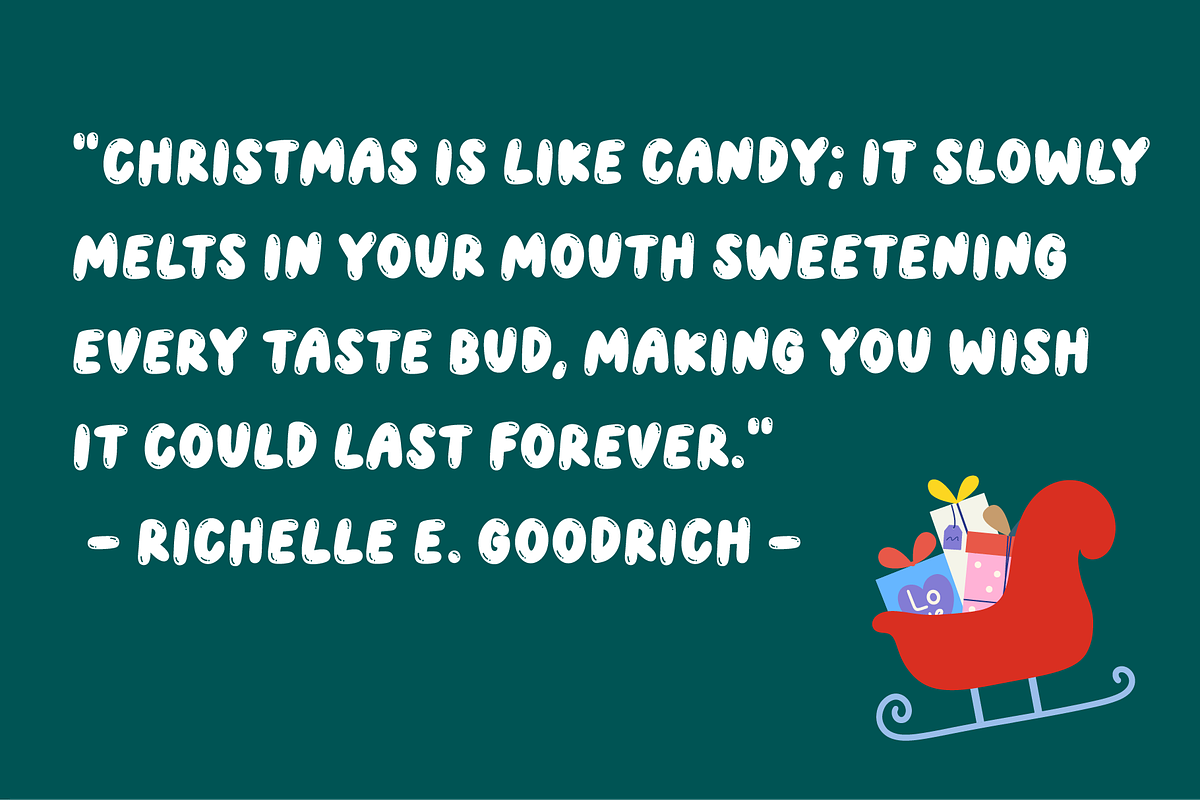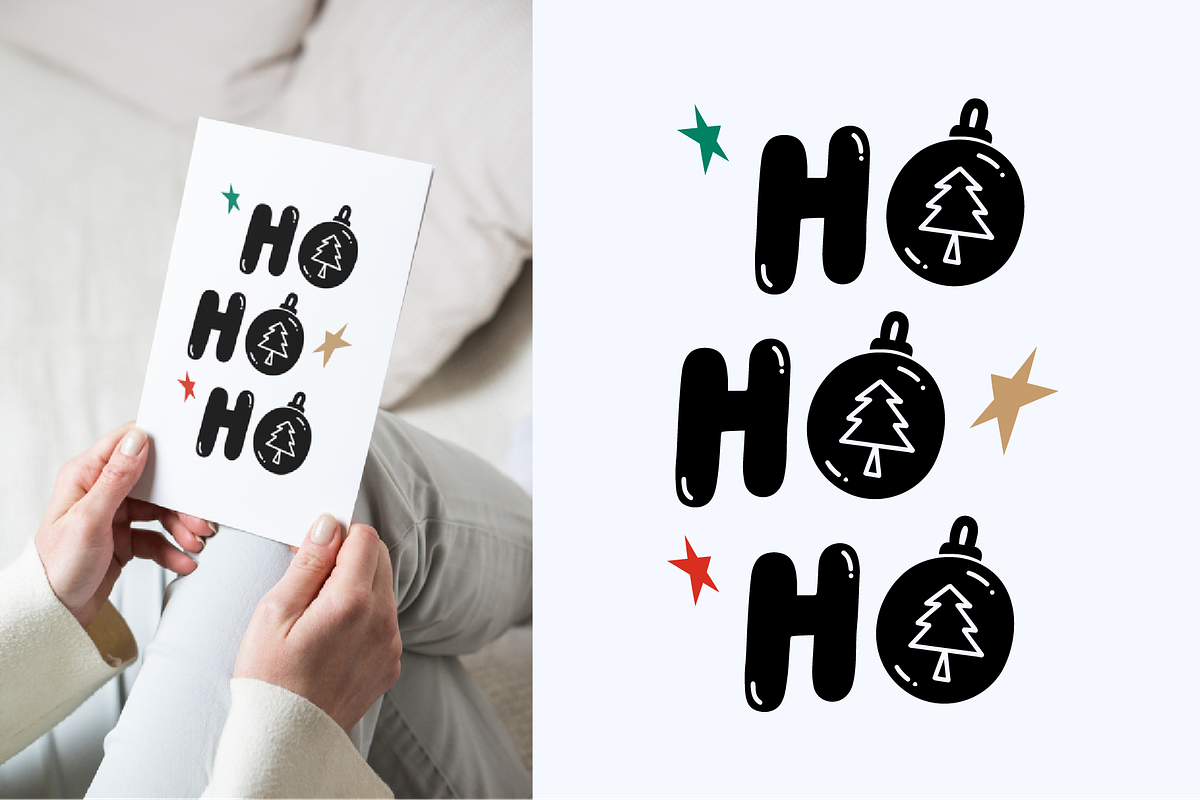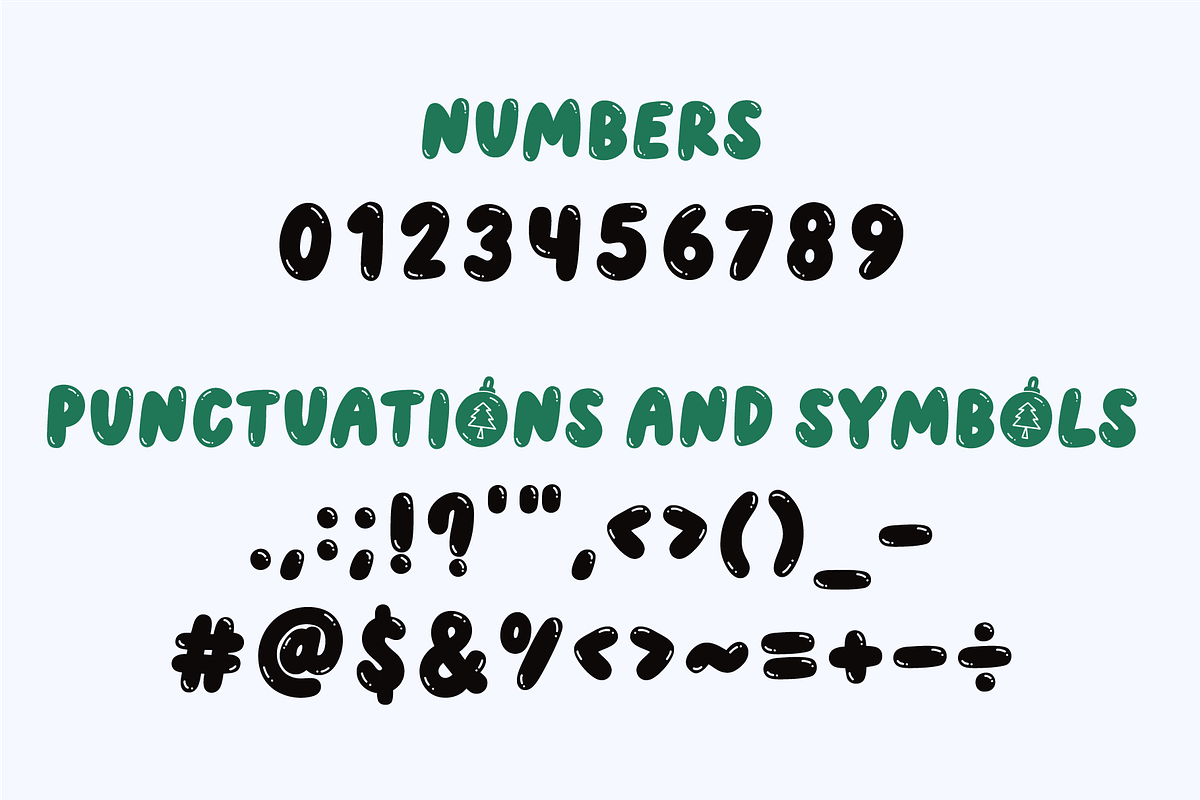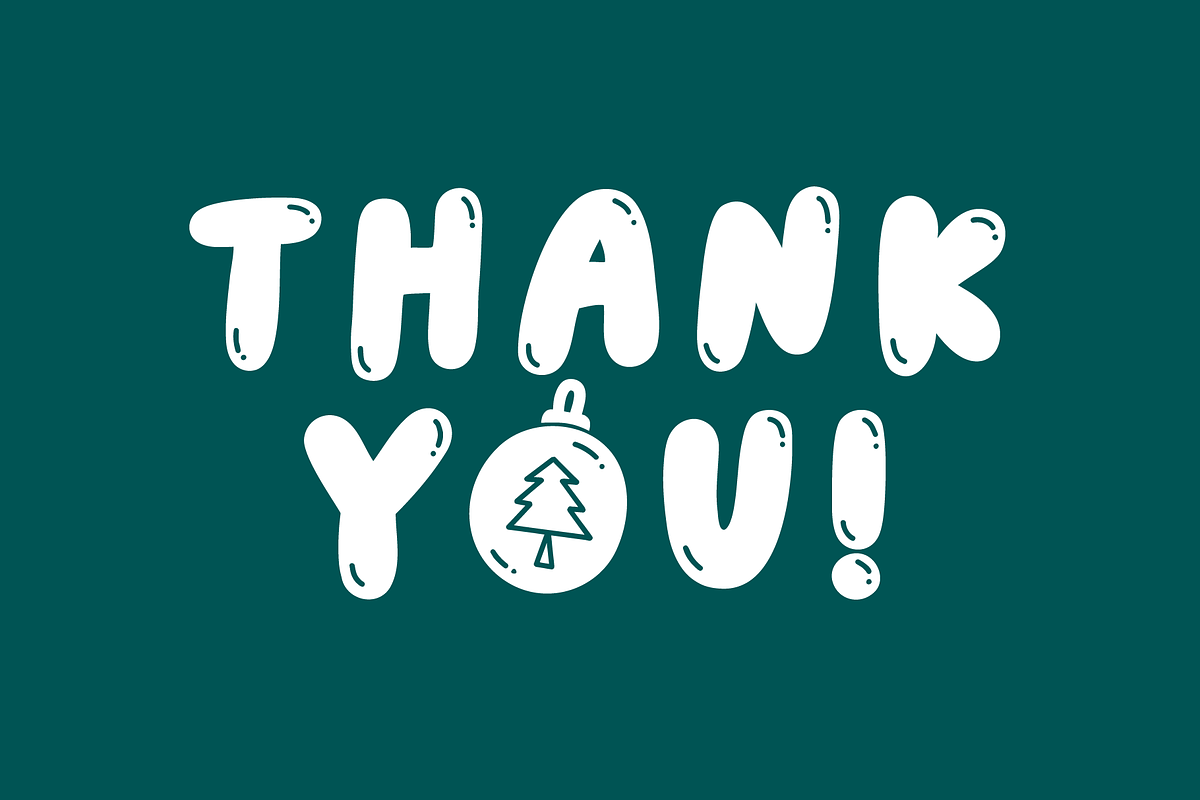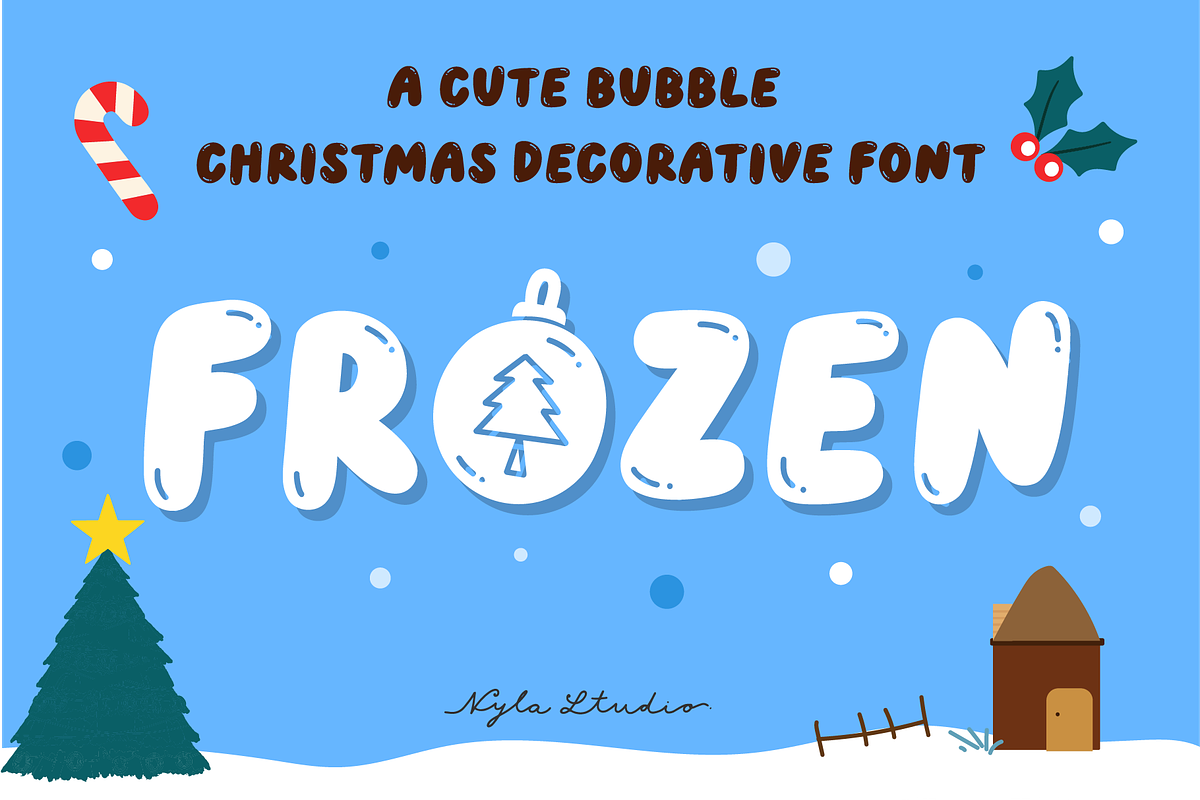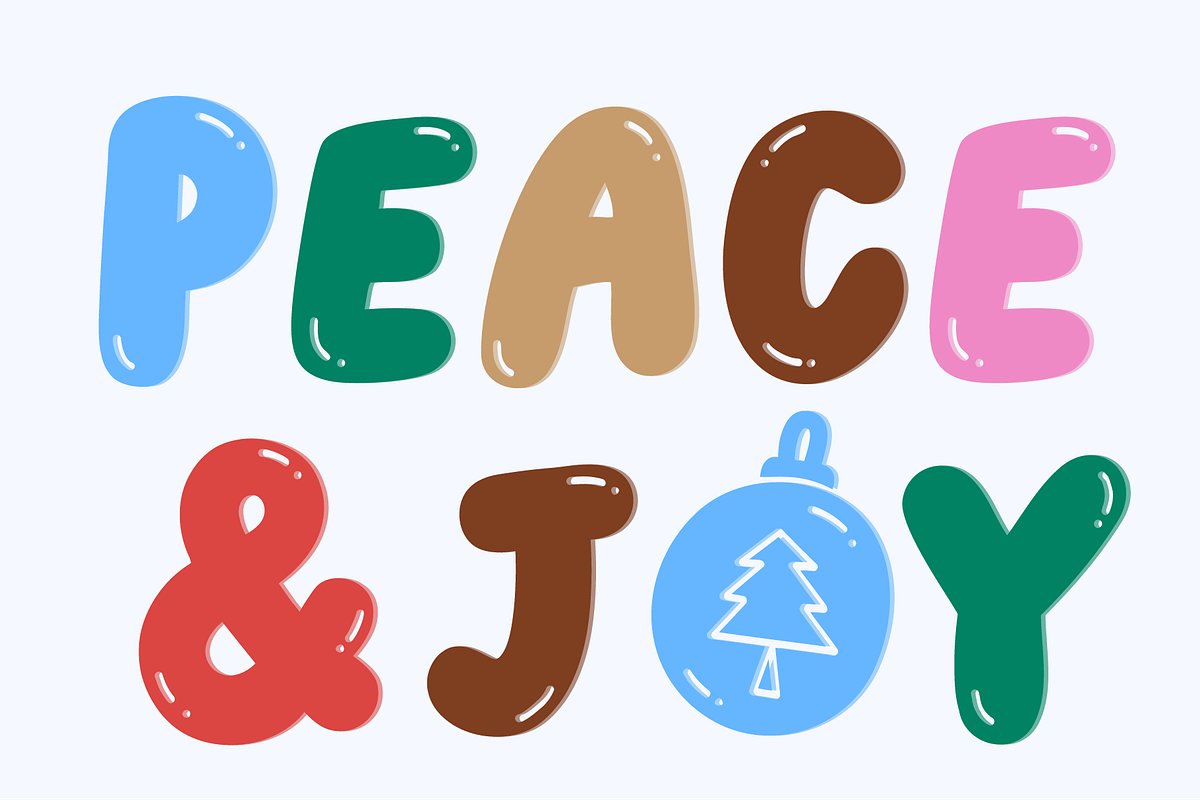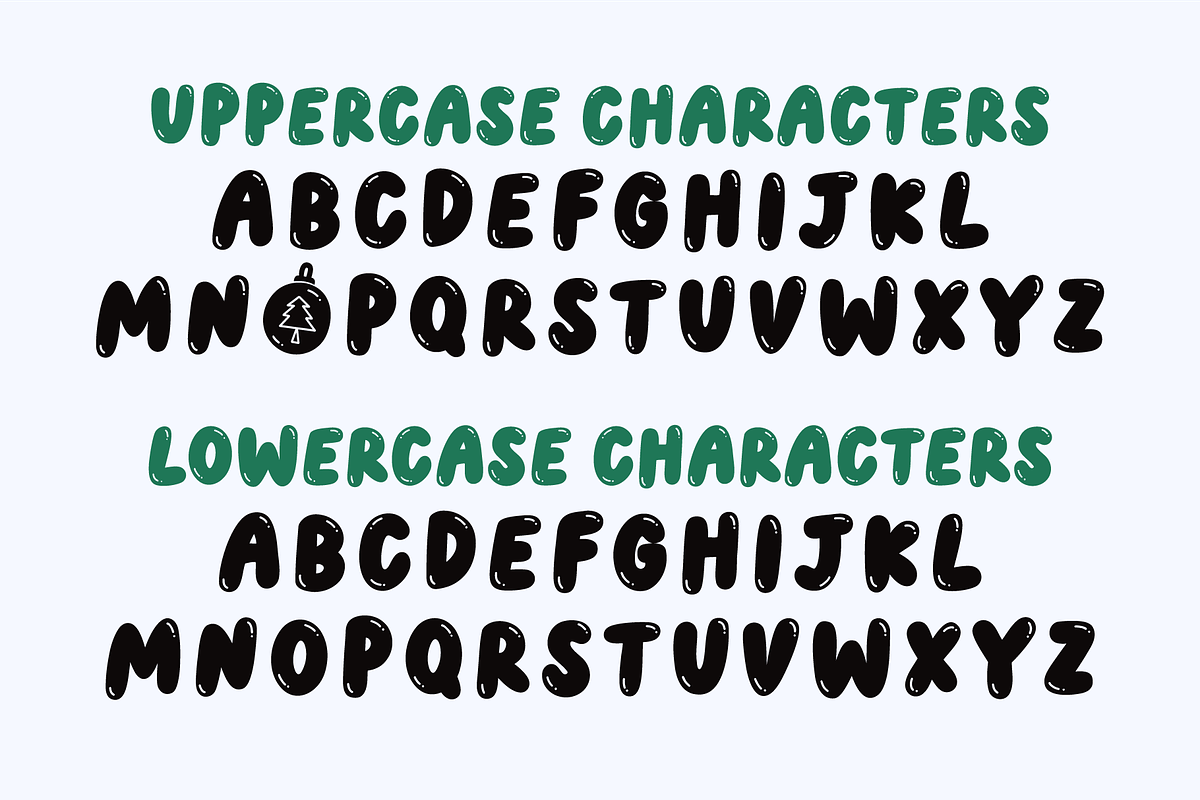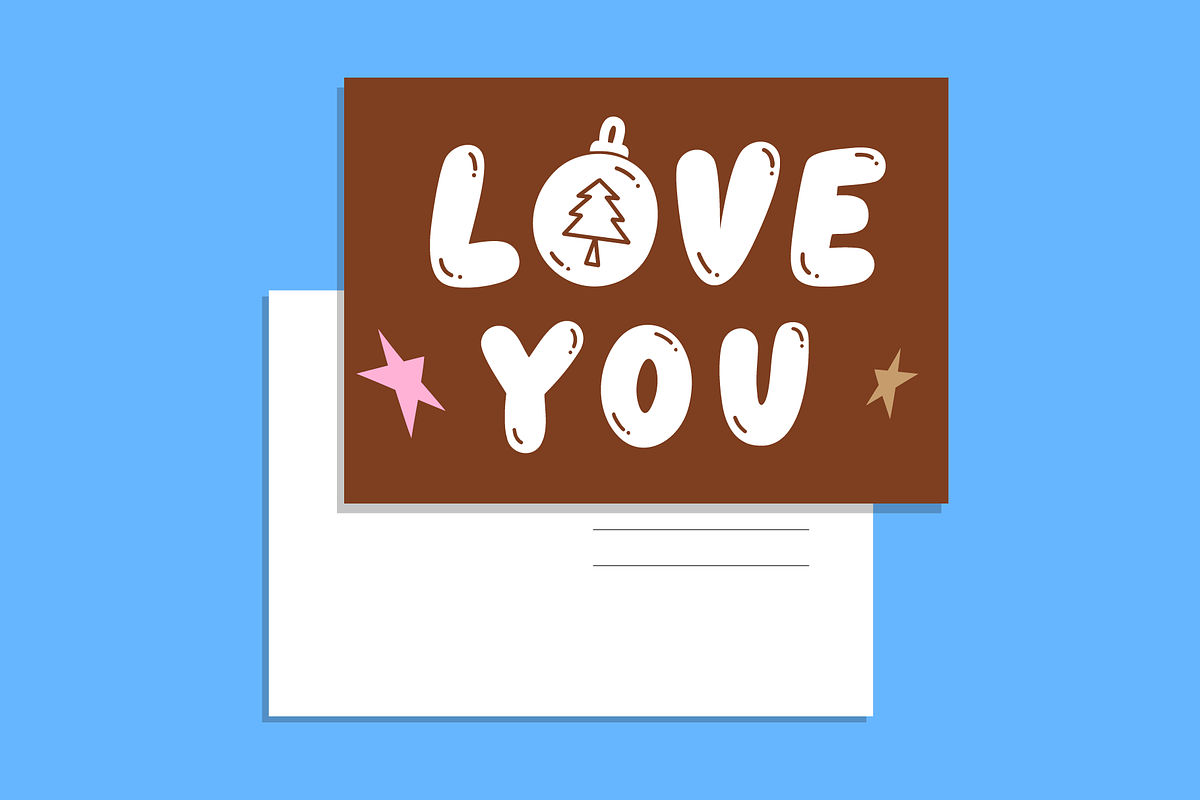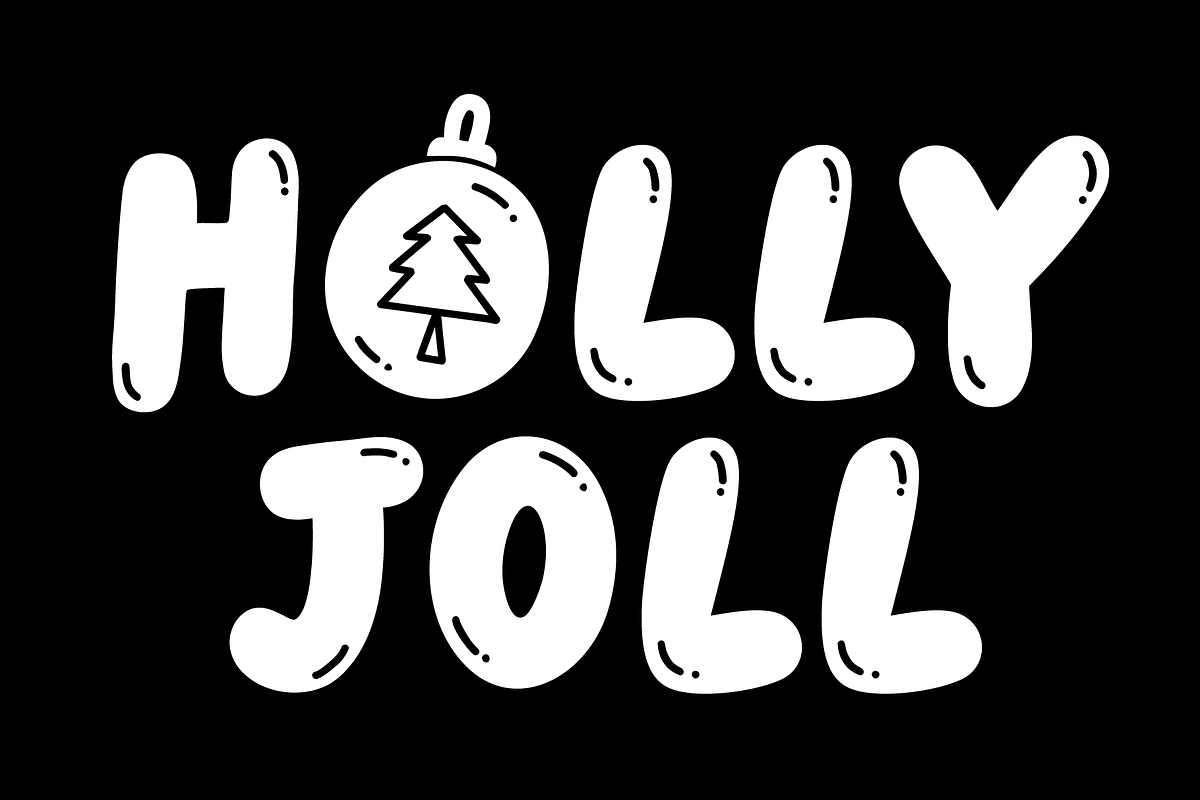
Frozen font
FROZEN is a cute bubble decorative font. Perfect for Christmas projects, card, shirts, retro designs, Christmas invitations, mugs, stickers, playful quotes, creating posters, logos, greeting cards, packaging, decorating the illustration and so much more!